Bretagne type foundry
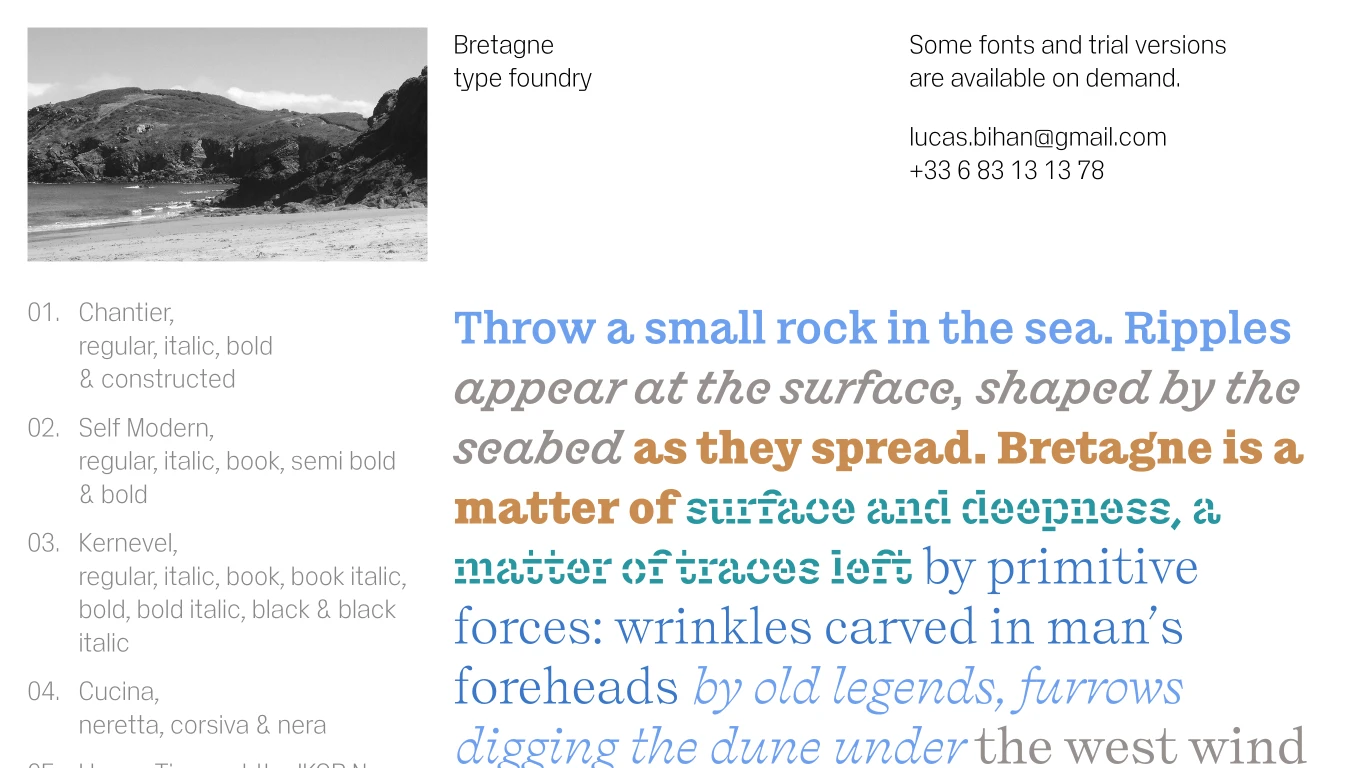
France
2016
Bretagne is the type foundry of Lucas Le Bihan, specializing in unique typefaces that blend historical influences with contemporary design. Notable projects include 'Chantier', a type family merging elements from Nebiolo's Egizio and Brittany's poster specimens, and 'Self Modern', inspired by traditional Japanese 'Mincho' serif typefaces.